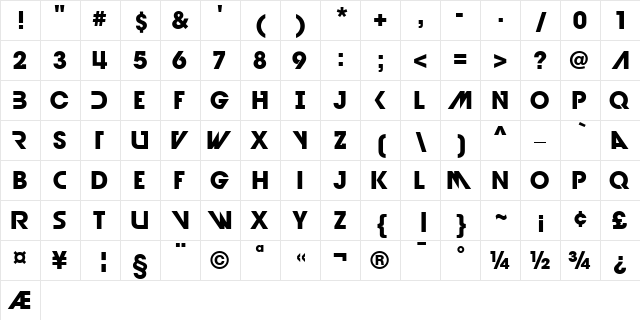
Devil Breeze Bold Font Preview
Devil Breeze Bold
Devil Breeze Bold Font Details
| Foundry | Wesley Pastrana Rosado(Weslo GFx) |
| Designer | Wesley Pastrana |
Design Context for Devil Breeze Typeface
Devil Breeze takes a measured approach to typography — its balanced proportions and neutral character make it a reliable workhorse for both digital and print work. Its bold stroke weight gives it real presence on the page.